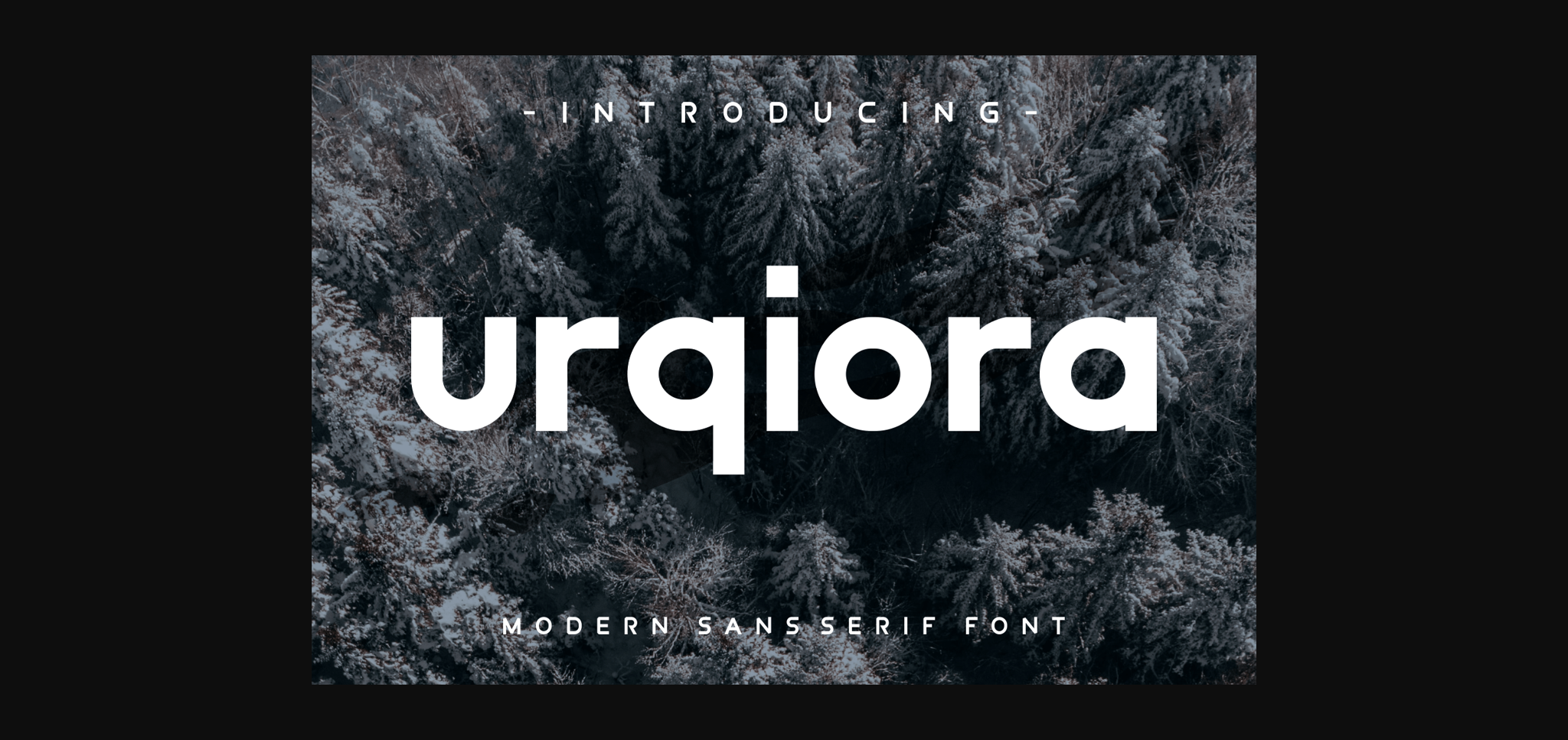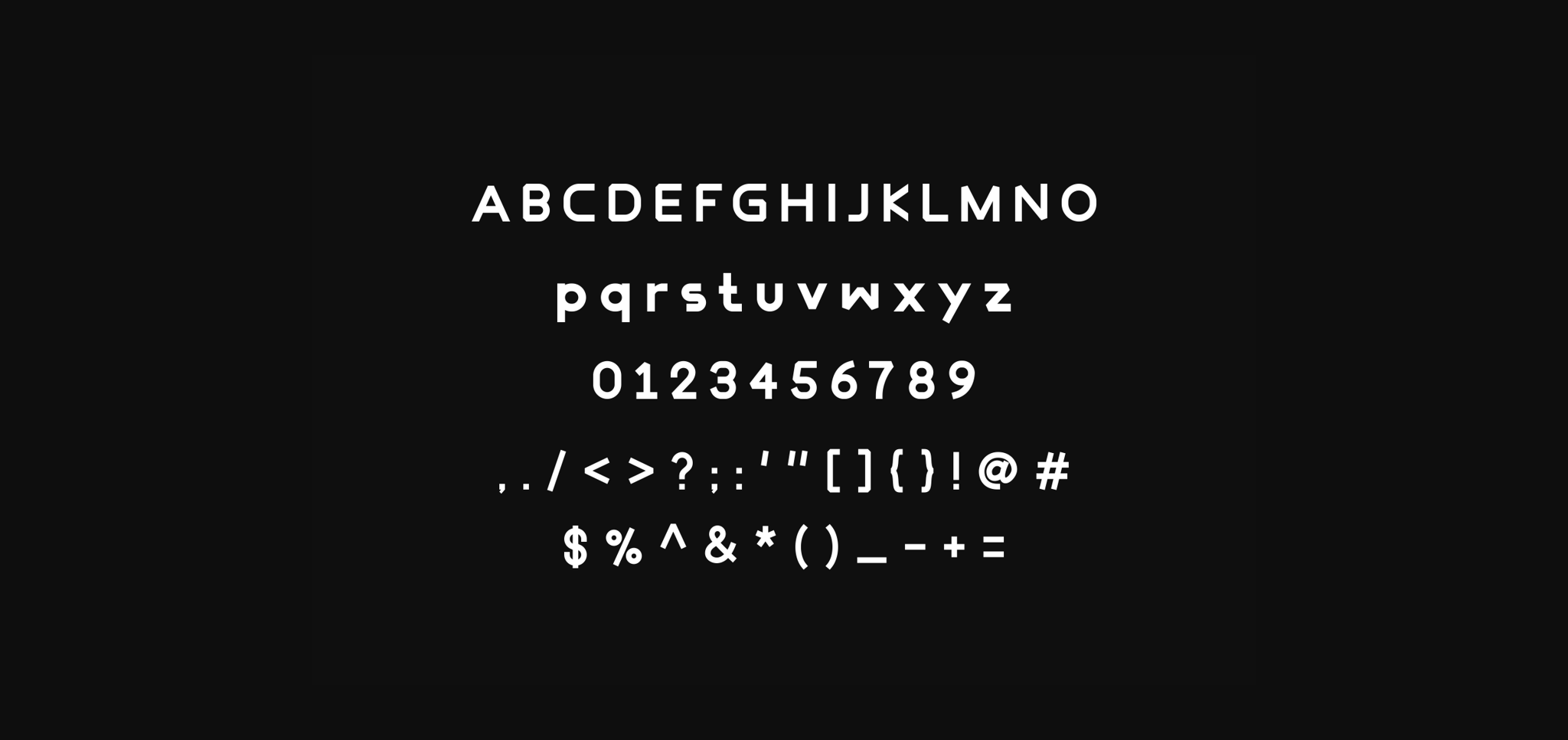
About Urqiora Font
Urqiora is a modern and cool sans serif font. Whether you’re using it for crafting, digital designing, presentations or greeting cards making, it’s perfect!